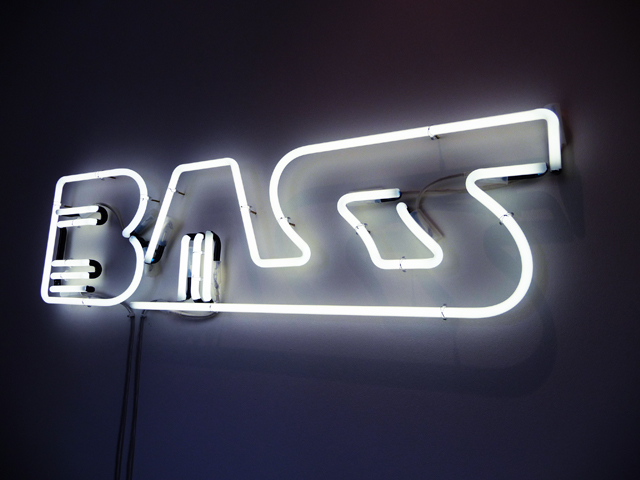
Commission for singer songwriter Ellie Goulding to create a custom neon artwork for her London home. The sign, designed by Dex and Anna, features the word B.A.S.S in pure white neon.